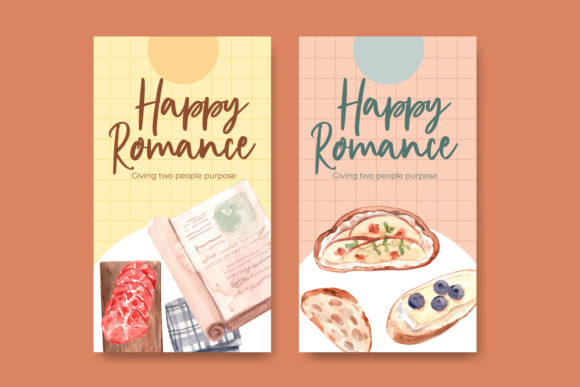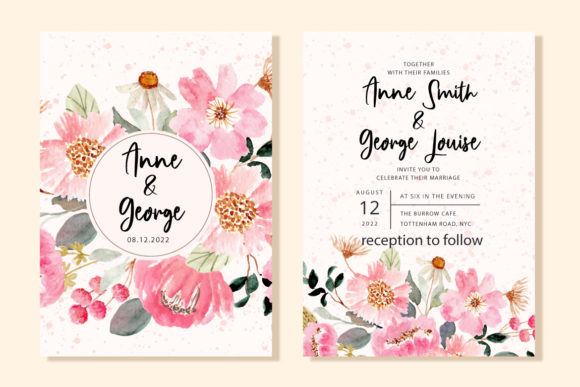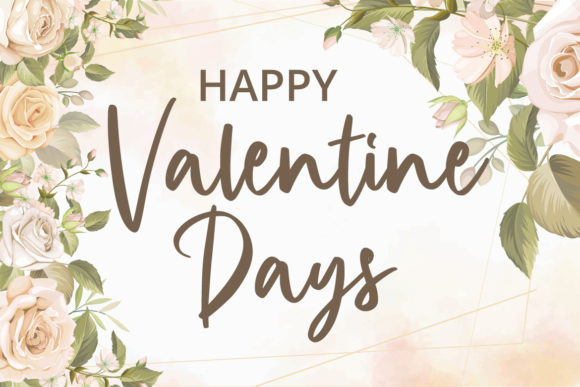
Introduction to Mitterlies Font
As designers, we’ve all been there – staring at a blank canvas, desperately searching for the perfect font to bring our creative project to life. It’s that moment when the perfect typography can make all the difference, elevating our design from good to great. And that’s exactly where the Mitterlies Font comes in – a modern and relaxed handwritten font that’s perfect for a wide range of applications.
With its high-quality design and transparent background, the Mitterlies Font is a valuable resource for designers looking to add a touch of elegance and sophistication to their work. Whether you’re creating logos, wedding invitations, or signage, this font is sure to impress. And the best part? It’s available for free download, making it an accessible design resource for creatives of all levels.
- High-quality font with a unique, creative design suitable for various projects.
- Suitable for use in creative projects, such as graphic design, digital art, and typography-based designs.
- Can be used as a design element in various digital and print-based materials, including logos, posters, and brochures.
I recently came across the Mitterlies Font while searching for a high-quality design resource for a creative project. I was impressed with its unique style and versatility.
- ✨ The font’s high-quality design makes it perfect for a wide range of creative projects, from print to digital media.
- ⚠️ The Mitterlies Font may not be suitable for all design projects, as its unique style can be polarizing.
Overall, I’m impressed with the Mitterlies Font’s potential as a design resource. While it may not be for everyone, its unique style and high-quality design make it a great choice for creative projects that require a distinctive touch.
The Mitterlies Font is ideal for creative projects, such as logos, branding materials, and typography-based designs. Its high-quality design makes it a popular choice among designers and artists.
Comparison to Mitterlies Font: Great Vibes has a more refined, classic look compared to Mitterlies Font’s unique, whimsical style.